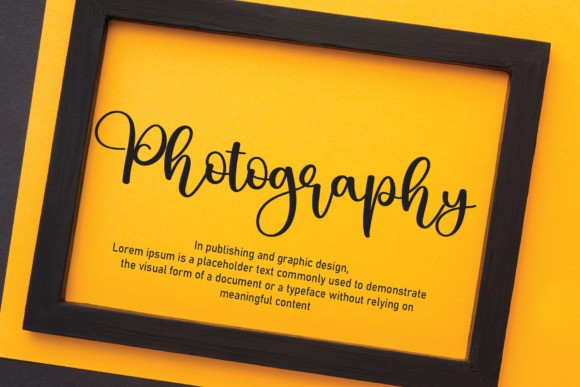
Peanut Font
Peanut Font, This beautiful font features letters that are perfect for wall displays, wedding invitations, social media post logos, advertisements, product packaging, product designs, labels, photography, watermarks, invitations, stationery, and any project that requires a handwritten taste.